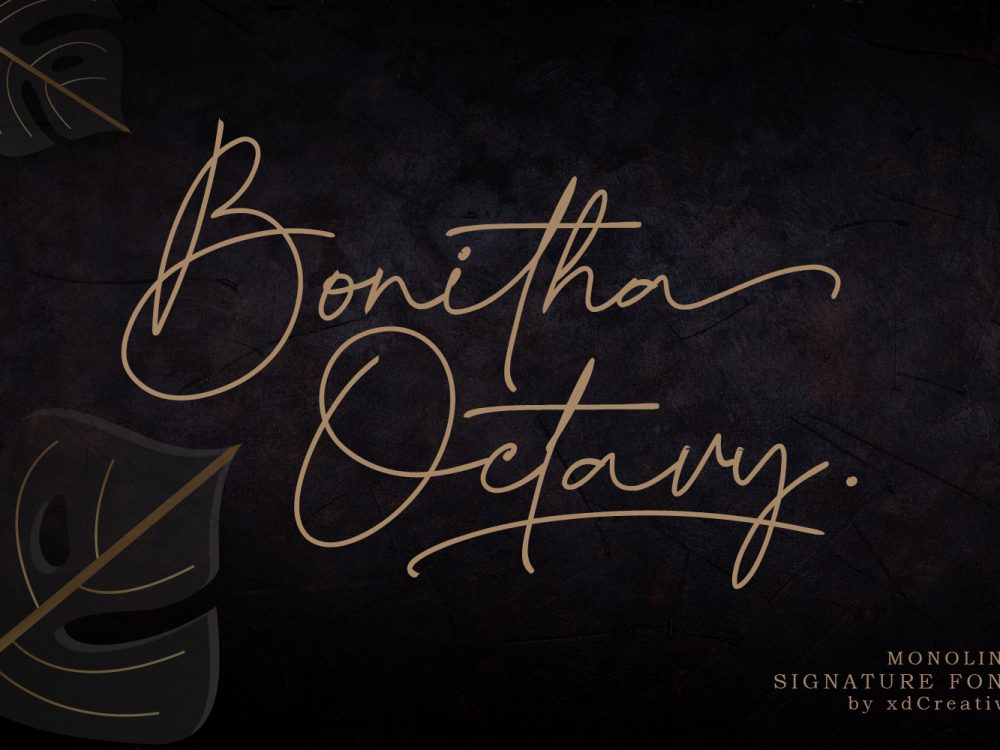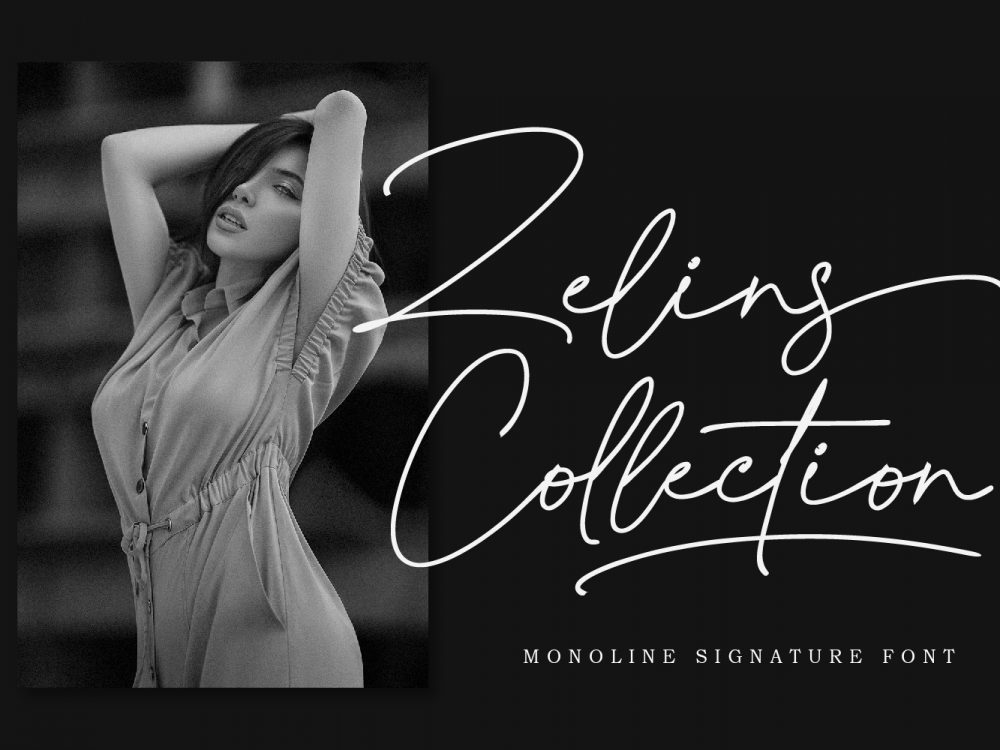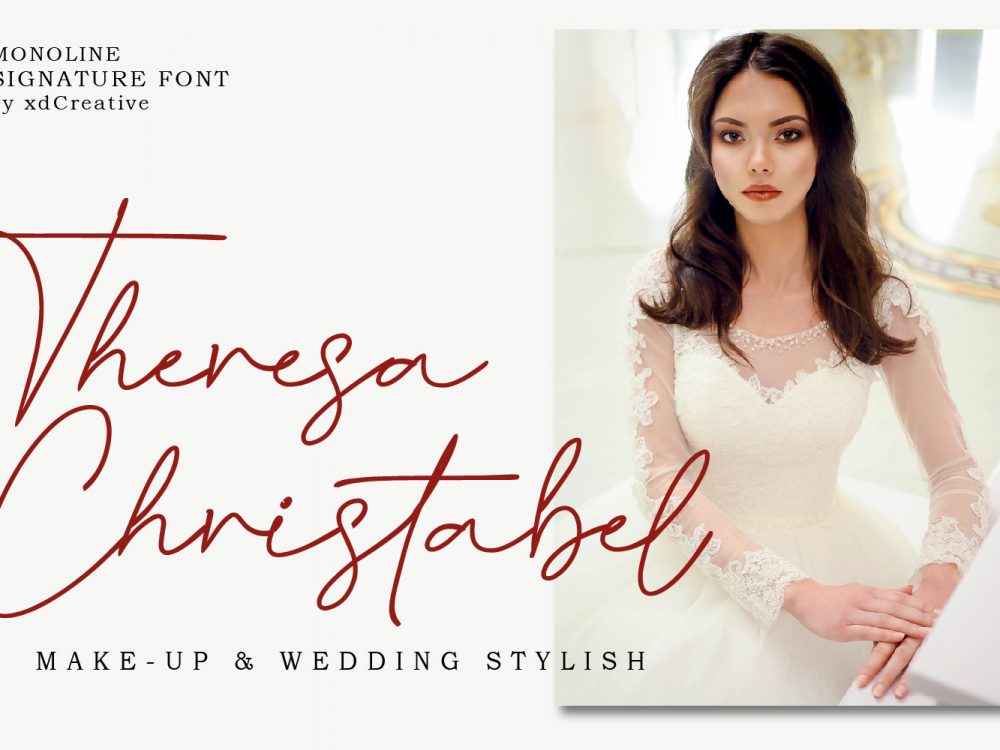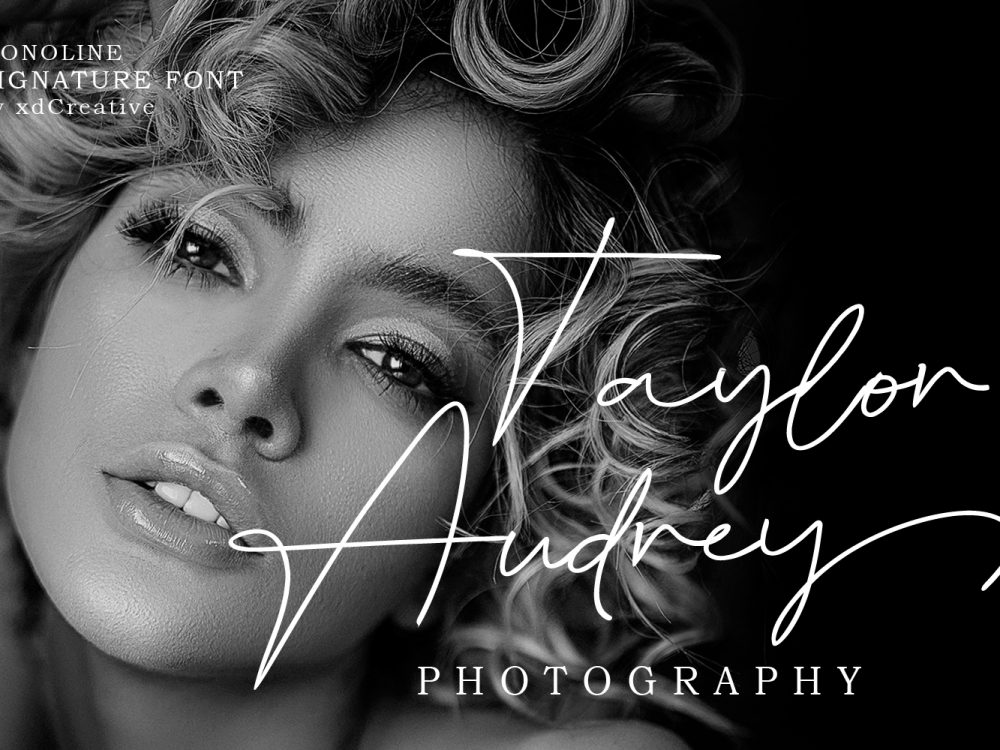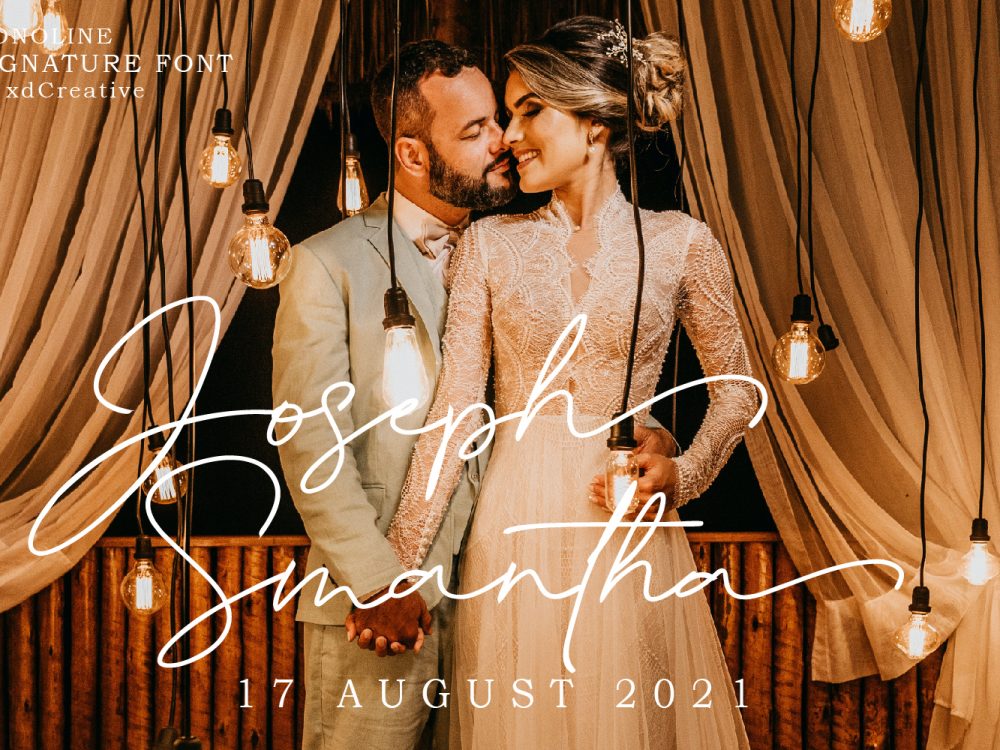
Free Bonita Octavy Font
Free Bonita Octavy Font is a stylish handwritten font that has an elegant calligraphic style. This font features a varying baseline, smooth lines, gorgeous glyphs, and stunning alternates and will help you create unique design projects and enhance your professional level. Use this font to create memorable posters, wedding invitations, cards, branding, flyers, and more. Improve the quality and increase the popularity of your design projects using this font. If you like it don’t forget to check out the full version.